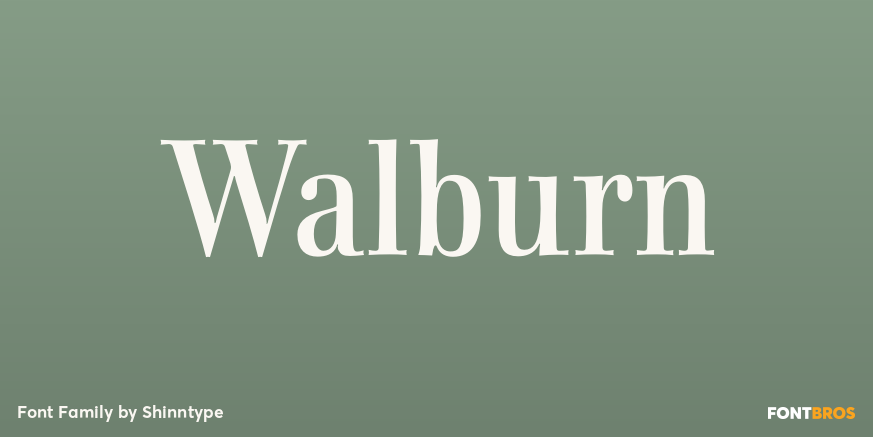
Walburn
About Walburn
Walburn is an adaptation of a typeface by Erich Walbaum, c.1800. It was originally suggested as a headline face by newspaper designer Tony Sutton, and subsequently developed for Canada's national paper, The Globe and Mail. It has narrow serifs and…